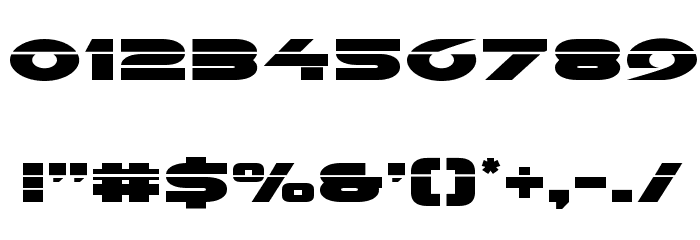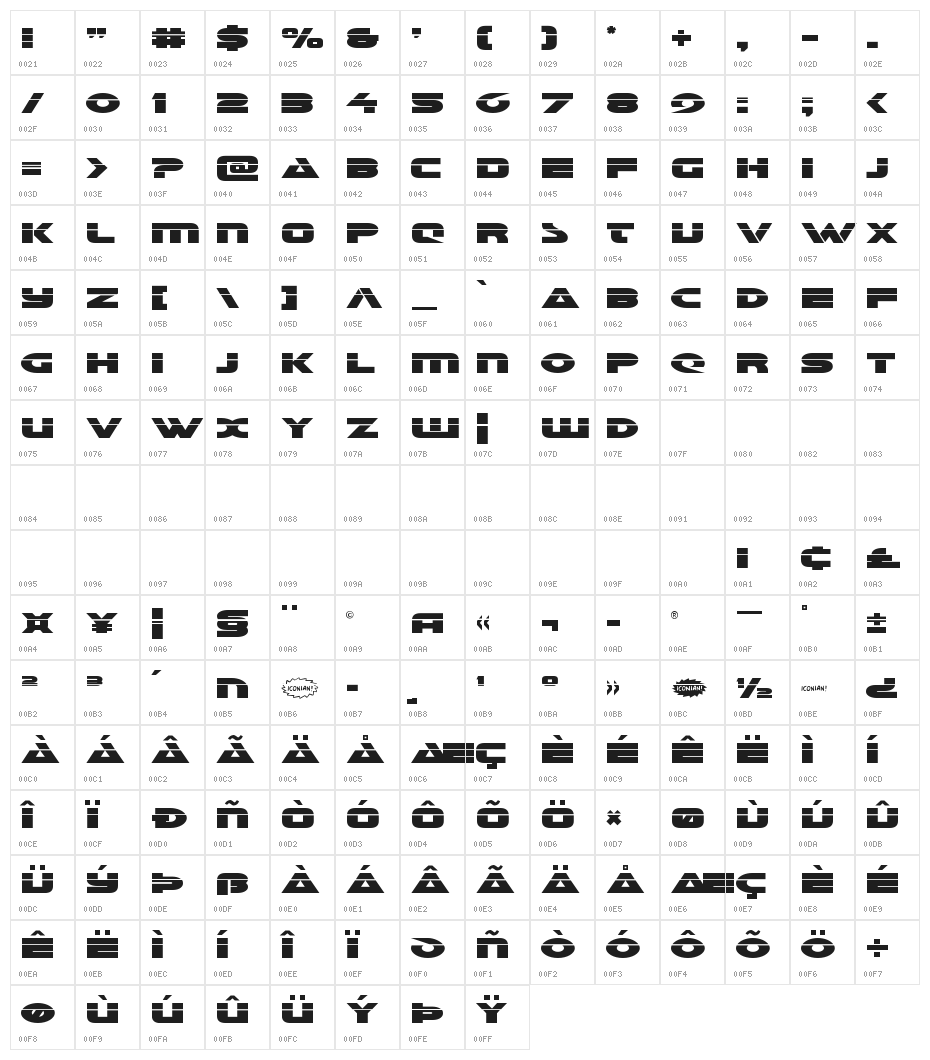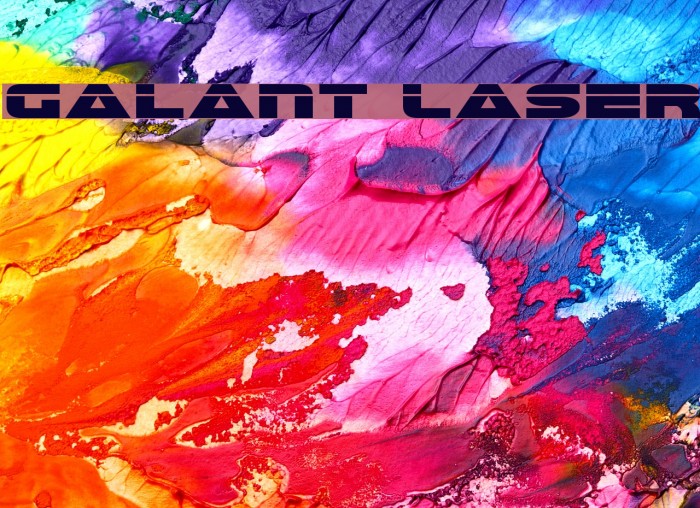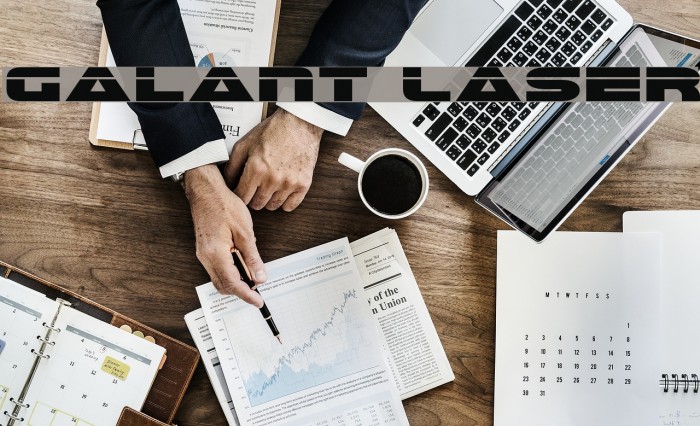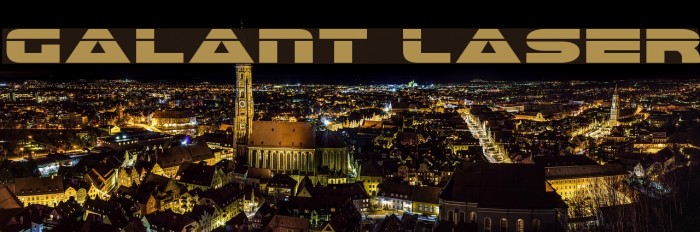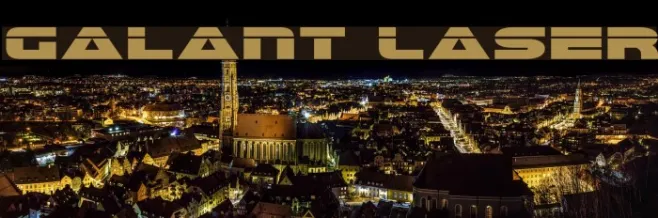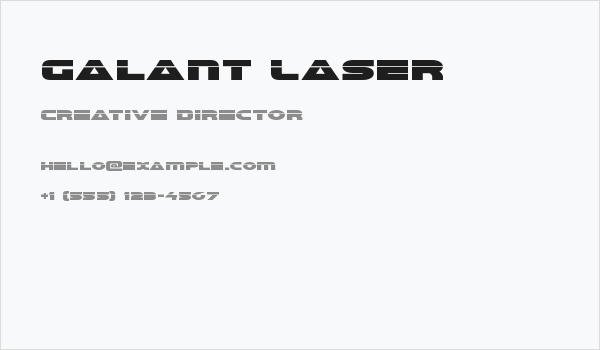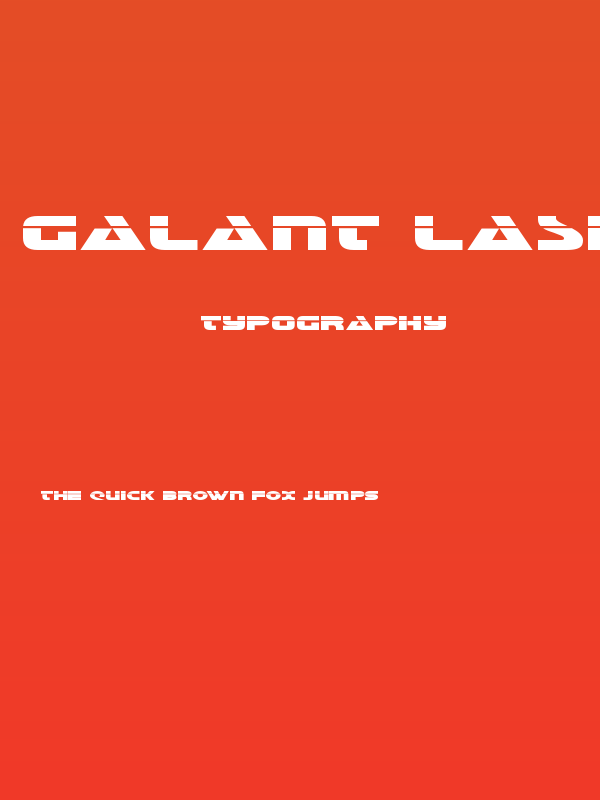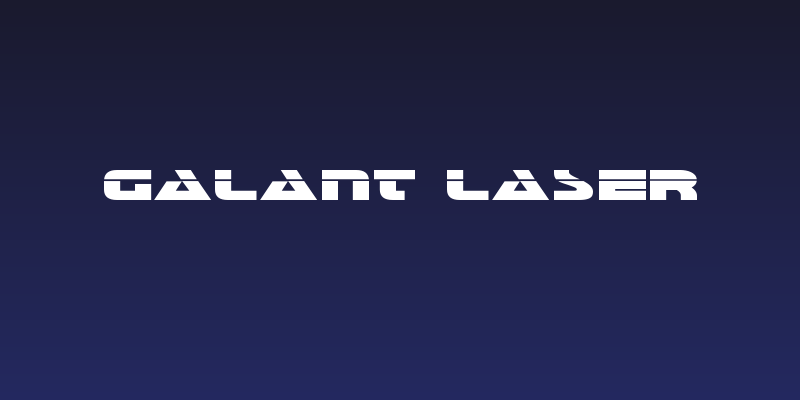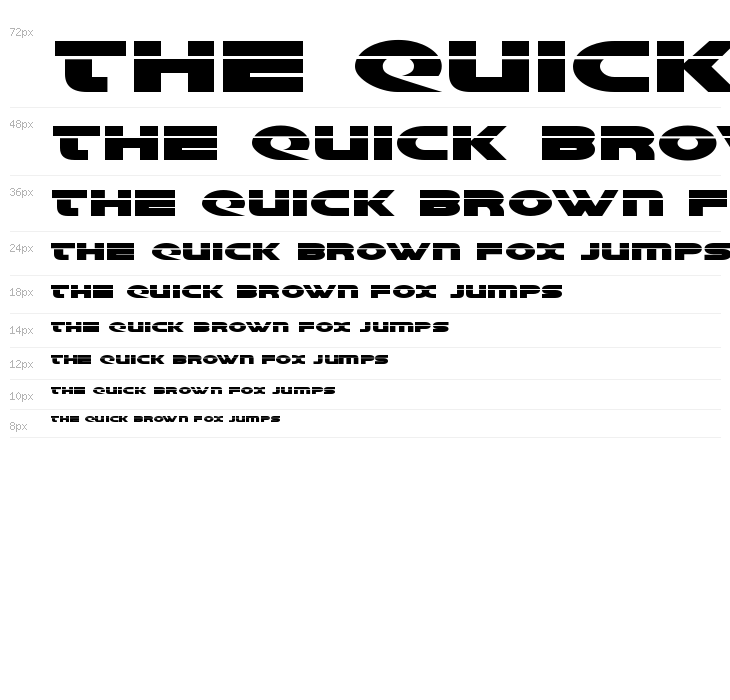
Galant Laser Font
Galant Laser Description
This font features a futuristic and bold design, characterized by its geometric shapes and sharp angles. The letters are constructed with a distinct cut-out style, giving them a dynamic and edgy appearance. The uppercase and lowercase letters maintain a consistent style, with a strong emphasis on horizontal and vertical lines. The numerals and special characters follow the same design principles, ensuring uniformity across all glyphs. This font's unique style makes it stand out, ideal for projects that require a modern and technological aesthetic.
| Proposed Projects | Ideal for sci-fi themed designs, technology branding, video game titles, and futuristic posters. |